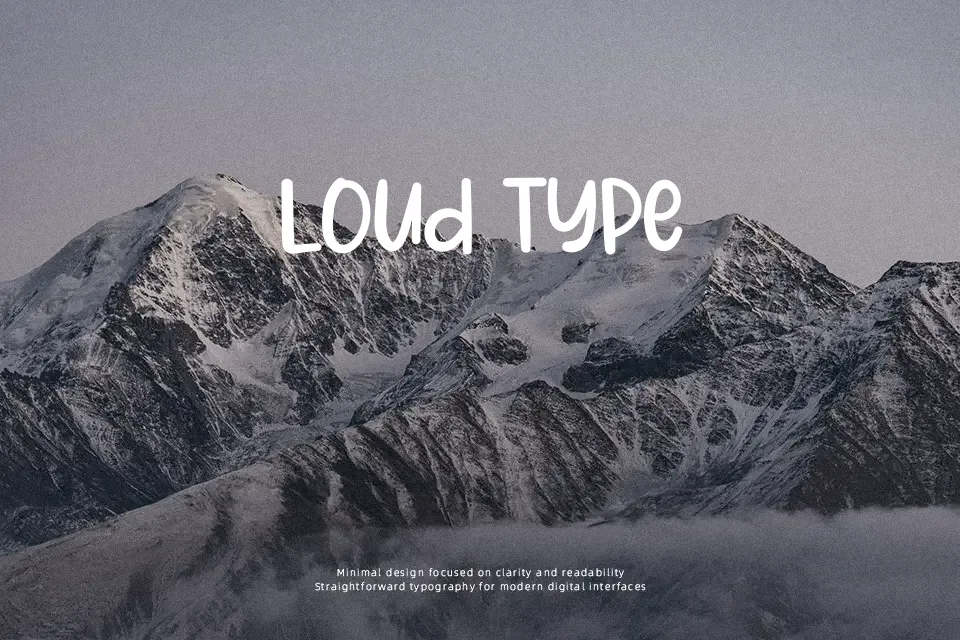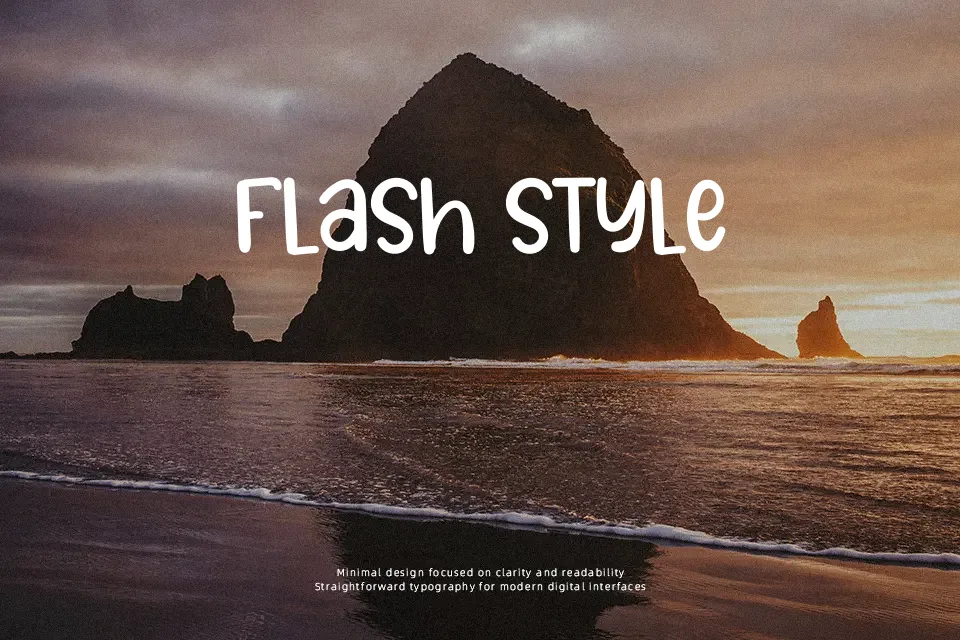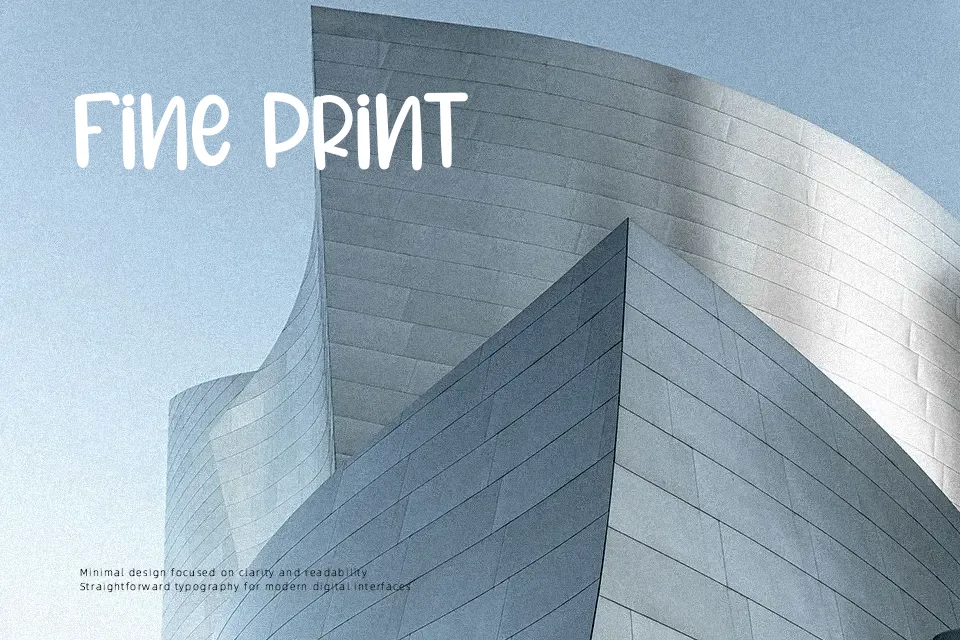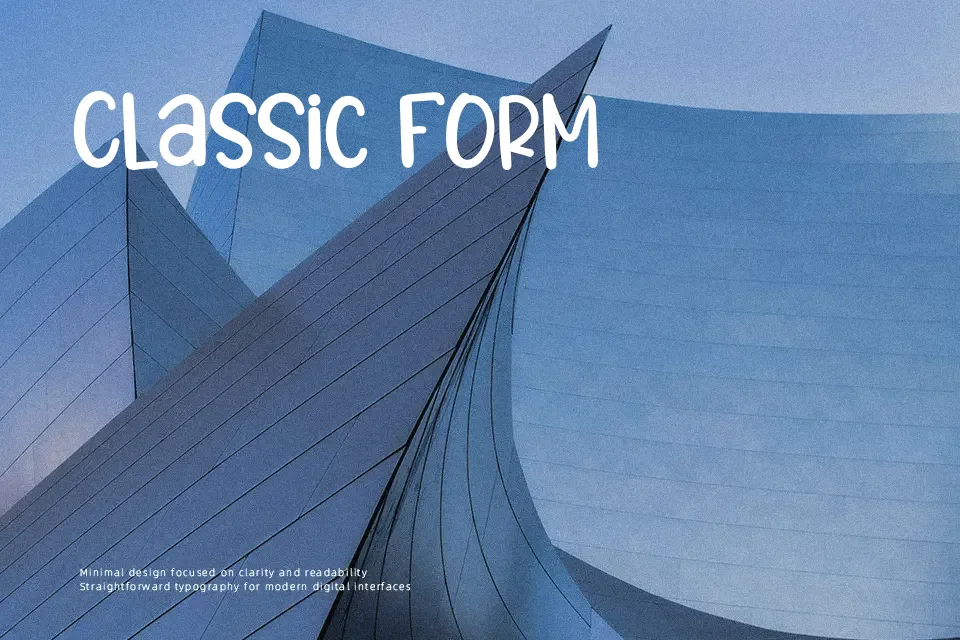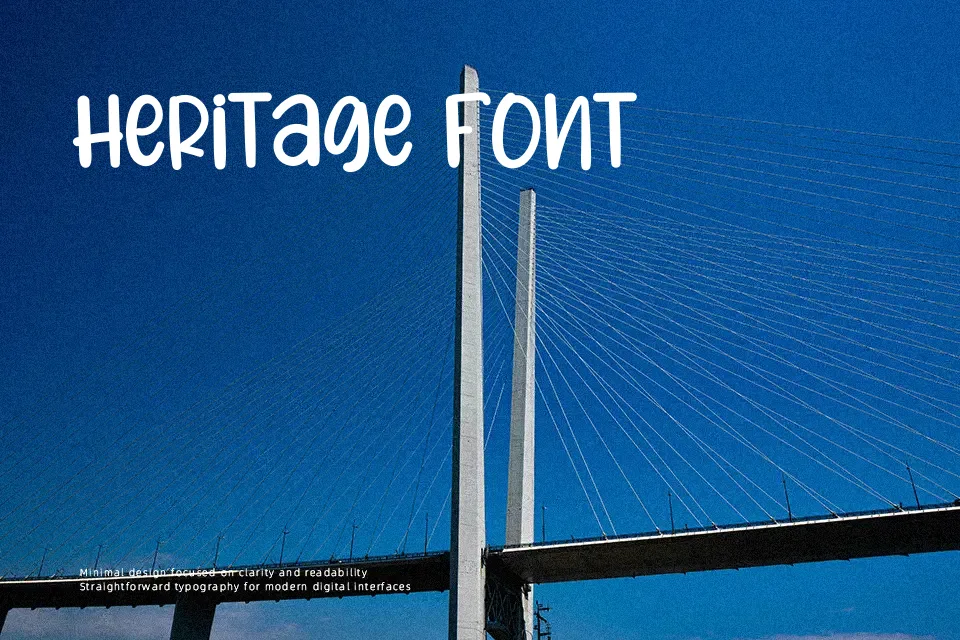
Sweet Rainbow Font
Sweet Rainbow Font uses broad, rounded letterforms with heavy, smooth strokes and a soft cartoon appearance. The characters have generous proportions that give short words a friendly, substantial presence, while the simple forms remain easy to recognize in large display settings. It works naturally for kids’ party materials, cheerful product labels, and illustrated poster headlines. The weight and rounded construction help it hold attention against busy artwork. However, its bold decorative character is less comfortable in small sizes or extended passages, where dense text can feel visually heavy.
Best For: children’s birthday invitations,kids’ product packaging,playful poster headlines,social media graphics
Not Ideal For: long paragraph text,small interface labels,corporate reports,technical manuals
Perfect for invitation, kids, and packaging, with a creative and cartoon style.